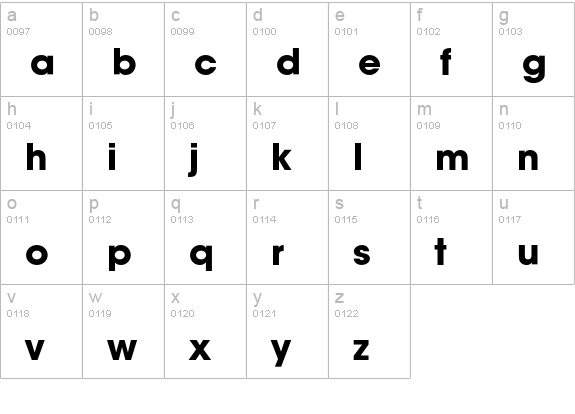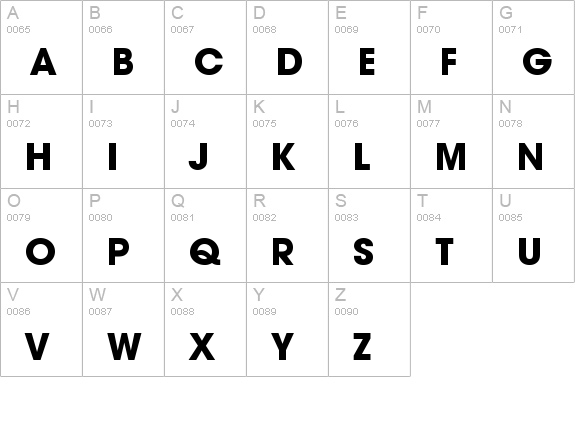
AvantGardEF-Bold is a strong, high-contrast variant in the AvantGardEF typeface family \xE2\x80\x94 well suited to headlines, attention-grabbing titles, and strong calls-to-action.
AvantGardEF-Bold is a modern and stylish font that exudes sophistication and elegance. Its bold and distinctive design makes it perfect for creating eye-catching headlines, titles, and logos. The clean lines and unique shapes of each letter give this font a contemporary and avant-garde feel, making it ideal for projects that require a touch of creativity and originality. This versatile font is free for personal and commercial use, and it can be easily downloaded at FontsMarket.com. Whether you are designing a website, creating marketing materials, or working on a branding project, AvantGardEF-Bold is sure to make a statement and leave a lasting impression. With its sleek and polished appearance, this font is a must-have in any designer's toolkit.